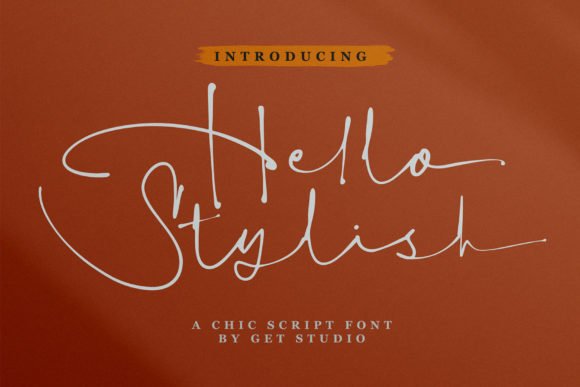
For designers seeking a timeless and elegant handwritten font, look no further than Hello Stylish Font. This beautiful font is specifically designed to create eye-catching logos, branding, and quotes that leave a lasting impression. Its PUA encoding allows for easy access to all the glyphs and swashes, giving you the freedom to get creative and experiment with different styles.
Whether you’re working on a high-end branding project or a personal design endeavor, Hello Stylish Font is an invaluable tool in your design arsenal. Its versatility and sophistication make it a valuable asset for any designer looking to elevate their work and stand out from the crowd.
Hello Stylish Font Key Features
- Unique Characteristics: Hello Stylish Font boasts a unique, hand-crafted design with intricate details and elegant lines, making it ideal for creative projects and branding.
Hello Stylish Font Review
I’ve had the chance to work with “Hello Stylish Font” for a while now, and I must say, it’s got some great qualities. ✨ First off, the font is incredibly versatile – it works beautifully for both body text and headings. The font’s unique blend of modern and elegant touches makes it perfect for a wide range of projects, from corporate reports to fashion magazines.
Another thing I love about this font is its excellent legibility. ✨ Whether it’s on a large screen or printed on paper, the font remains crisp and easy to read. The font’s subtle nuances also make it a great choice for titles and headings, where a bit of flair can go a long way.
However, there are a few limitations to keep in mind. ⚠️ For one, the font can feel a bit overused if you’re not careful – it’s become a popular choice in recent years, and you may find that your project starts to look like every other one that’s used it. Additionally, the font’s intricate details can make it a bit tricky to work with at smaller font sizes.
- Can be overused if not used thoughtfully
- May not work well at very small font sizes
Overall, I think “Hello Stylish Font” is a great addition to any designer’s toolkit. While it’s not perfect, its versatility and legibility make it a solid choice for a wide range of projects. With a bit of creativity and restraint, I have no doubt that you can create something truly stunning with this font.
Tips for Getting the Most Out of Hello Stylish Font
Here are some tips for getting the most out of Hello Stylish Font:
– Use it to create eye-catching headings and titles.
– Experiment with different font sizes and colors to create visual interest.
– Pair it with other fonts to create a unique and stylish typography.